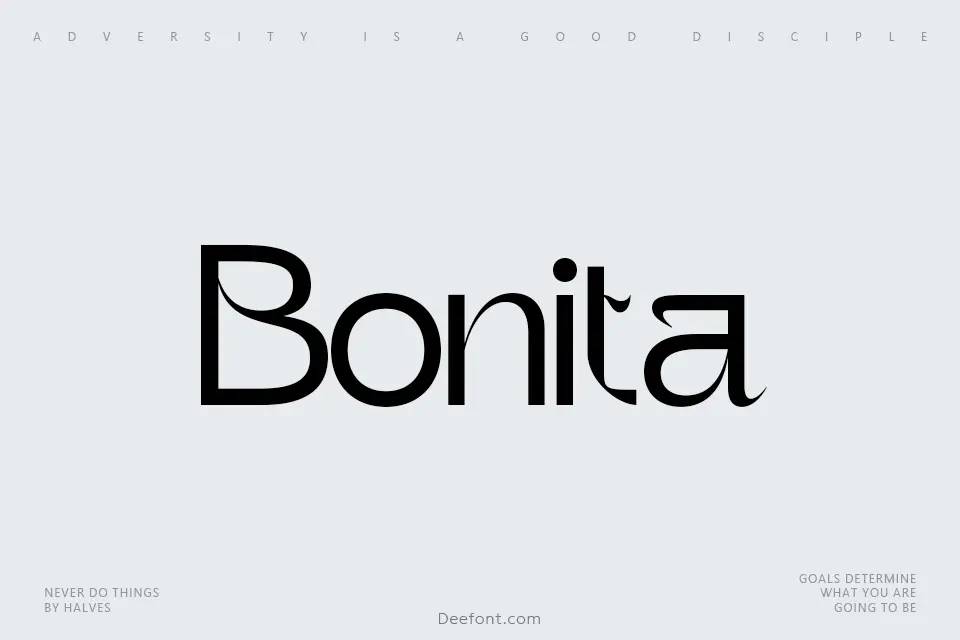
CS Bonita Font
CS Bonita Font is a stunning Art Nouveau-inspired font designed by Craft Supply Co. It features elegant curves and intricate details that evoke a sense of vintage sophistication while maintaining modern versatility. Perfect for branding, packaging, posters, and editorial designs, CS Bonita adds character and refinement to any project. The typeface is carefully crafted to balance boldness with artistic flair, making it ideal for both display and decorative purposes. Its unique design captures the timeless beauty of the Art Nouveau era, making it an excellent choice for creatives seeking to elevate their work with a touch of classic elegance.